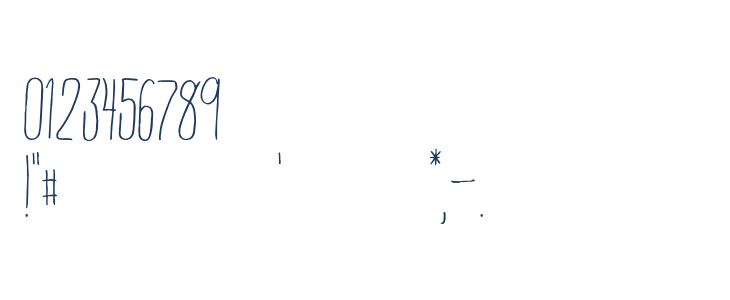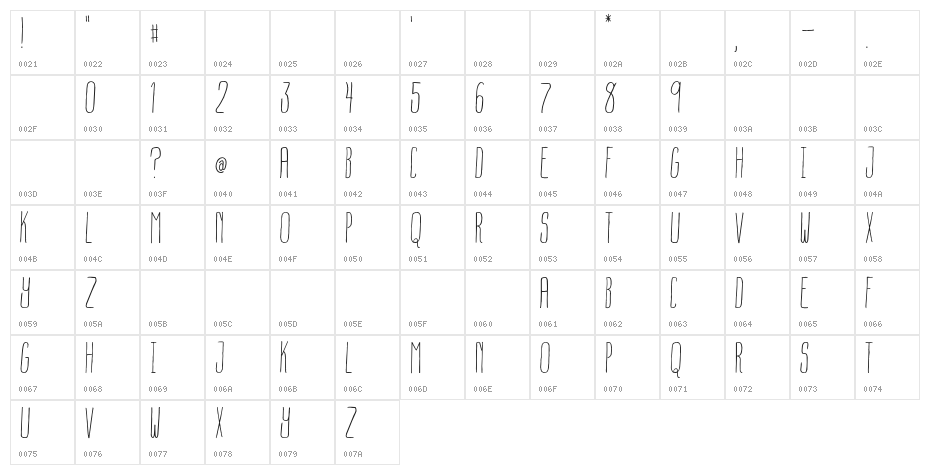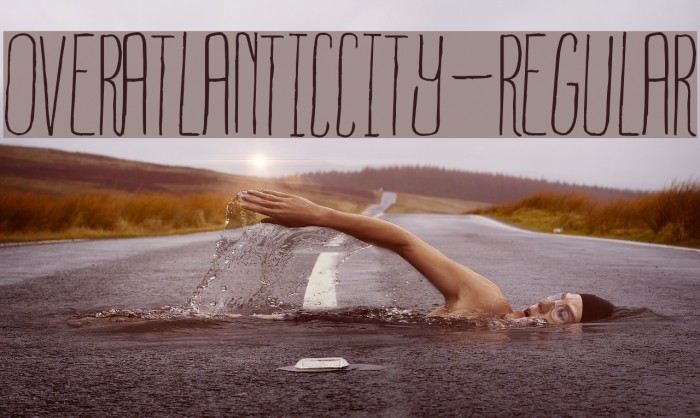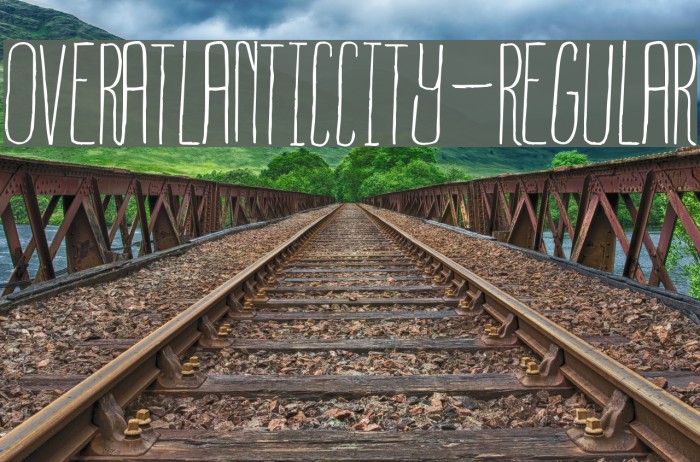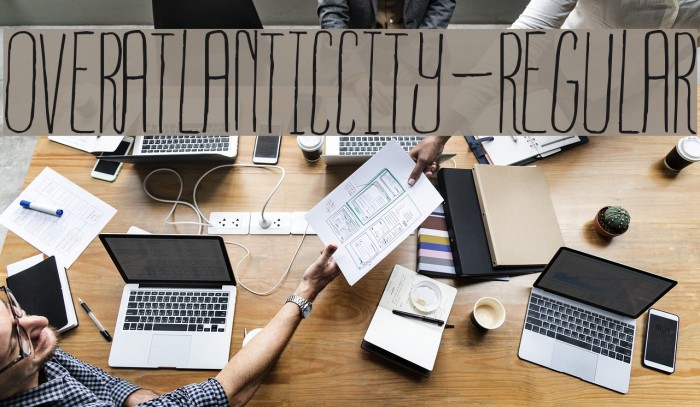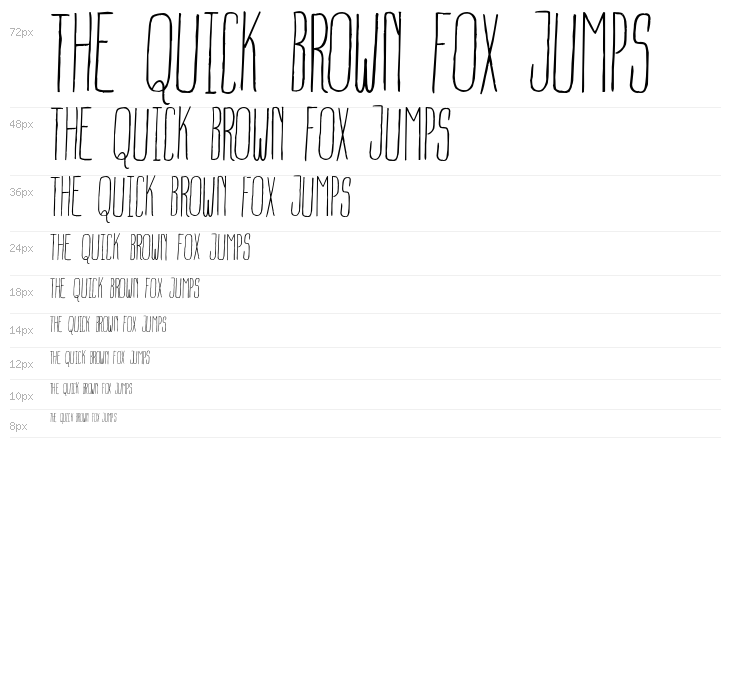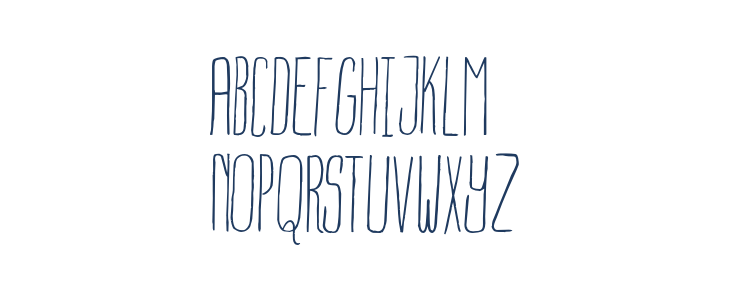
OverAtlanticCity-Regular Font
OverAtlanticCity-Regular Description
This font features a tall and narrow design with elongated letterforms that give it a unique and elegant appearance. The strokes are thin and consistent, creating a sleek and modern look. The uppercase and lowercase letters maintain a uniform height, enhancing the font's vertical emphasis. The numbers and special characters are designed to match the overall style, ensuring a cohesive appearance across all text elements. Its distinctive style makes it suitable for projects that require a touch of sophistication and modernity.
| Proposed Projects | Ideal for fashion magazines, luxury branding, event invitations, and modern art posters. |